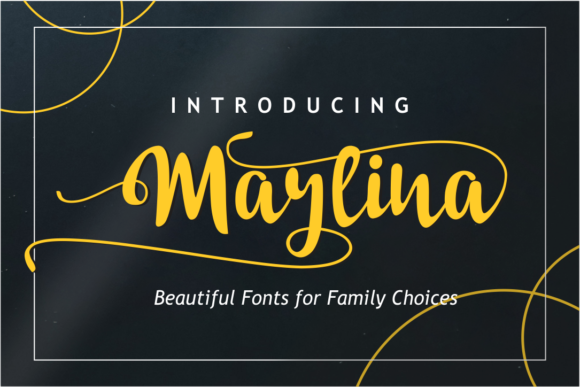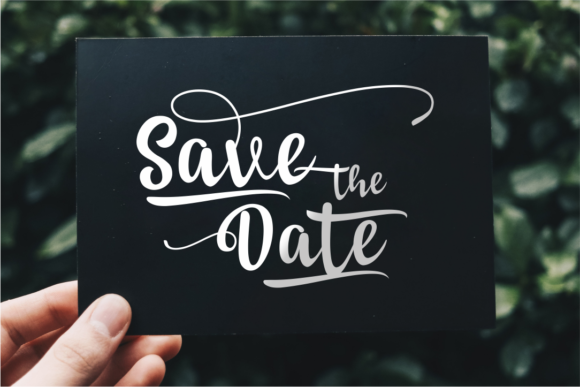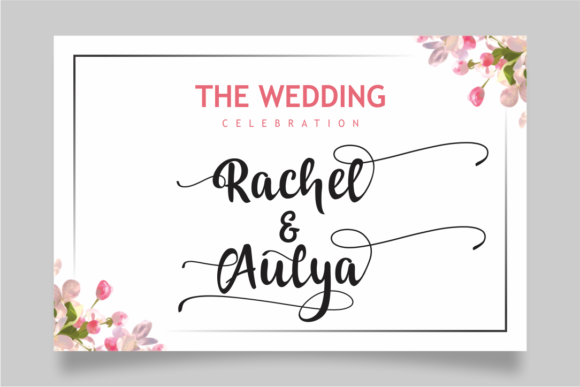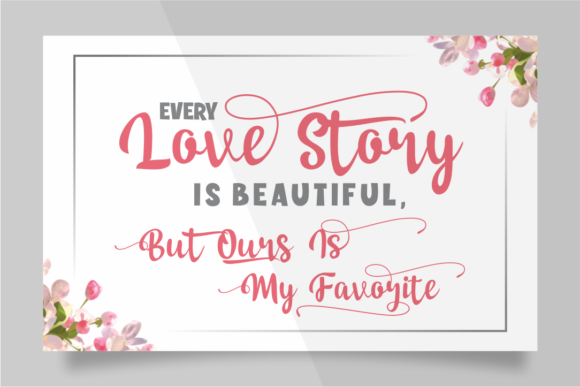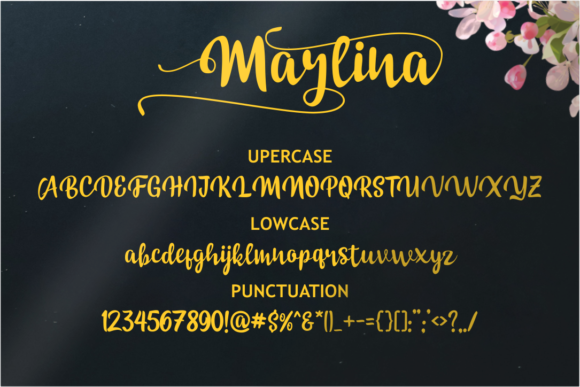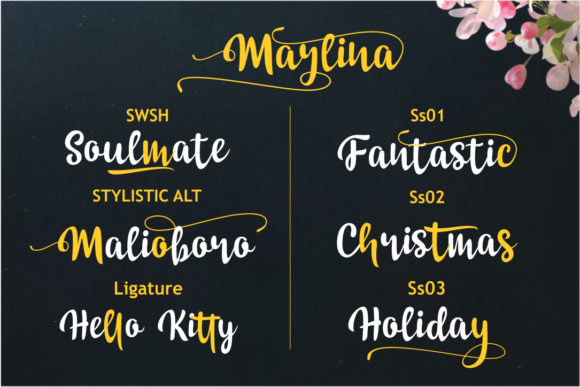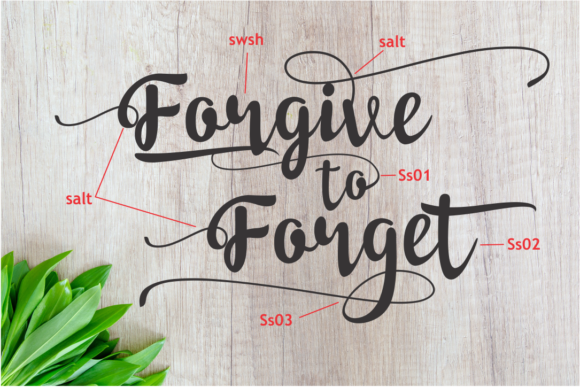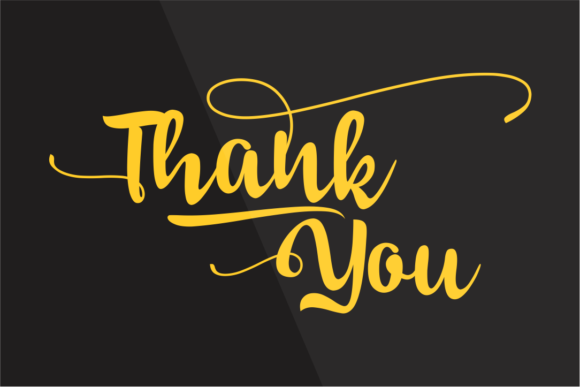
Marlina Font
About Marlina Font
Marlina is a swashy and dynamic typeface that’s great for turning any design idea into a true standout. Get inspired by its unique charm!